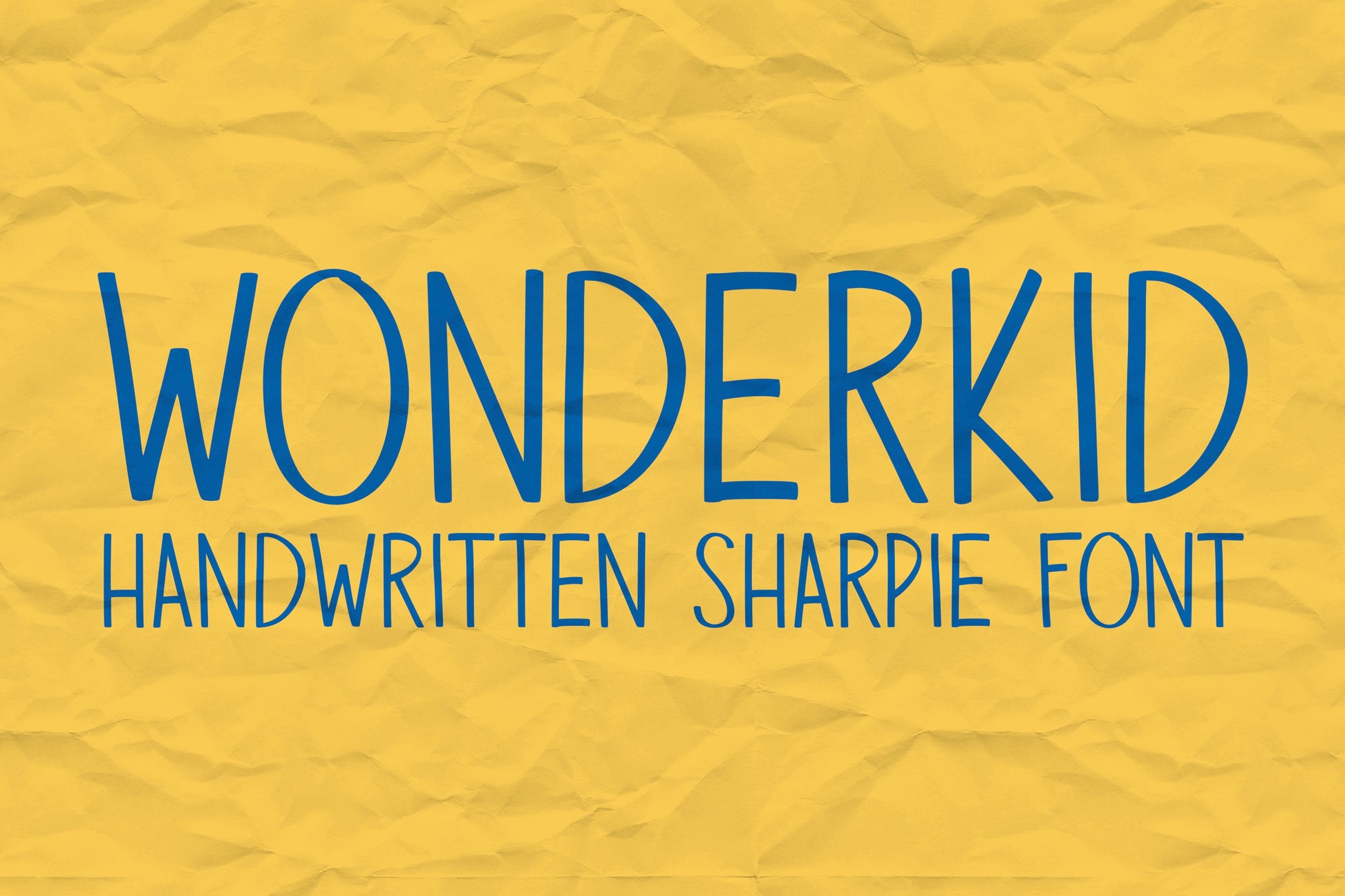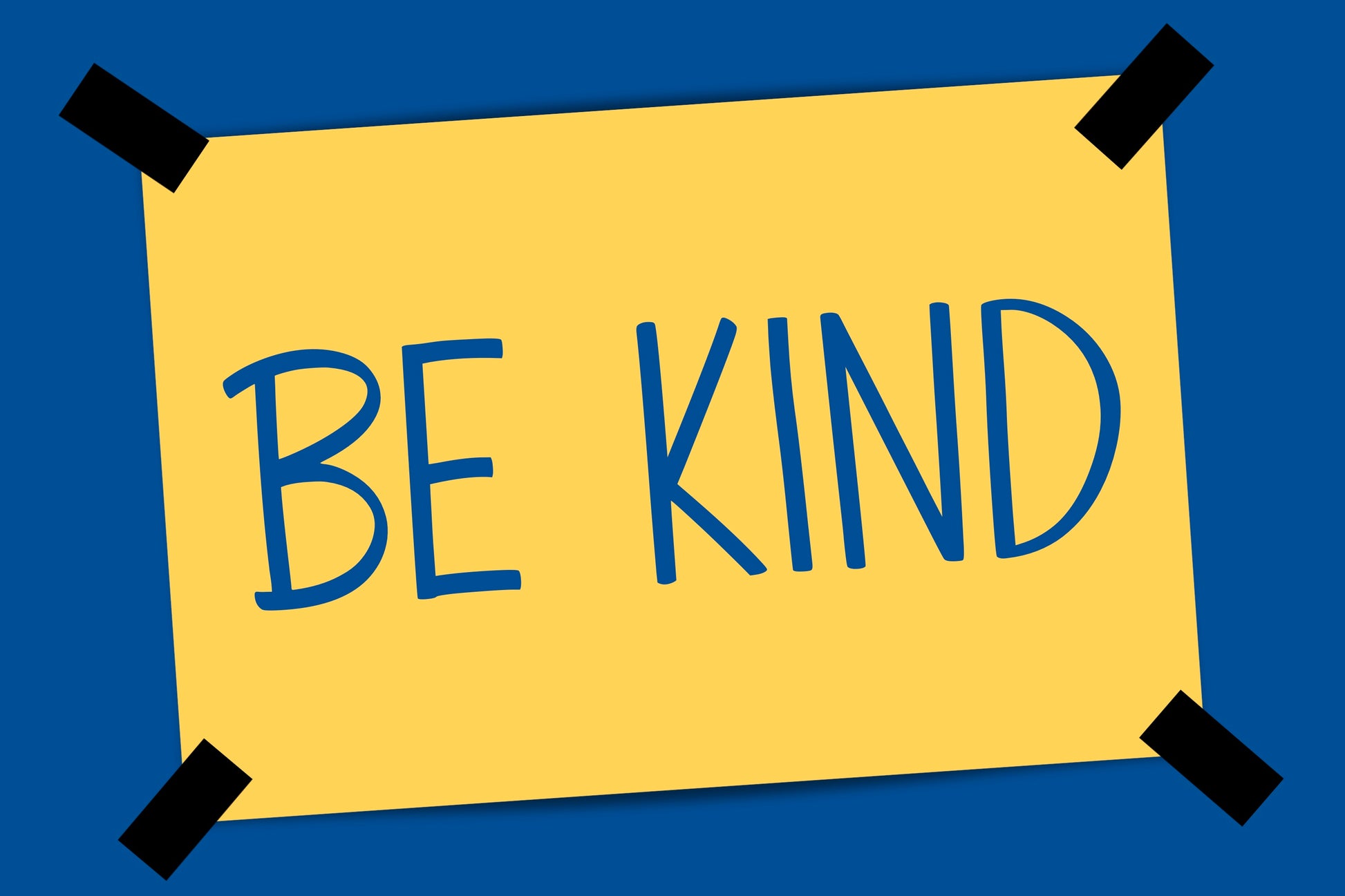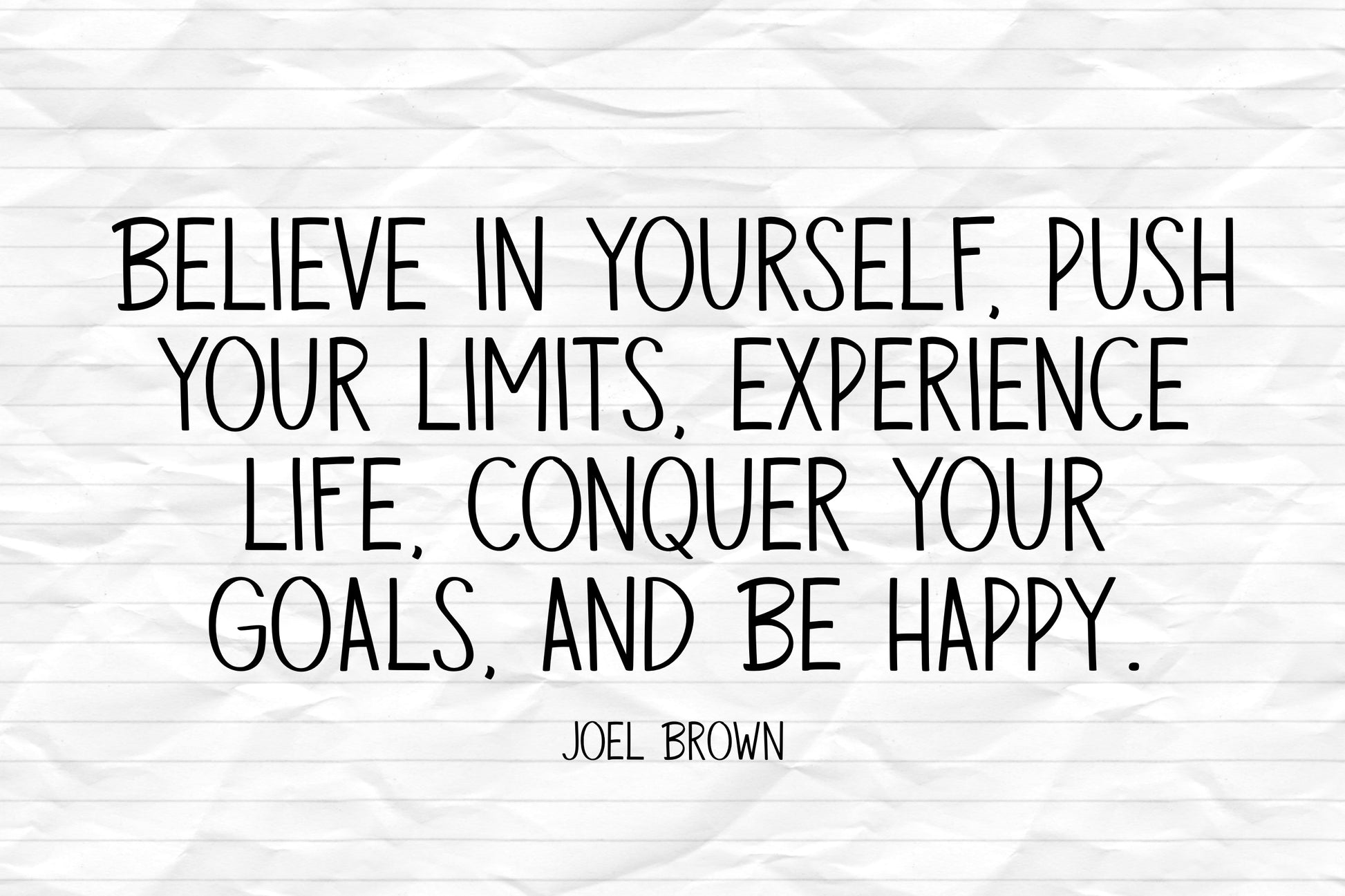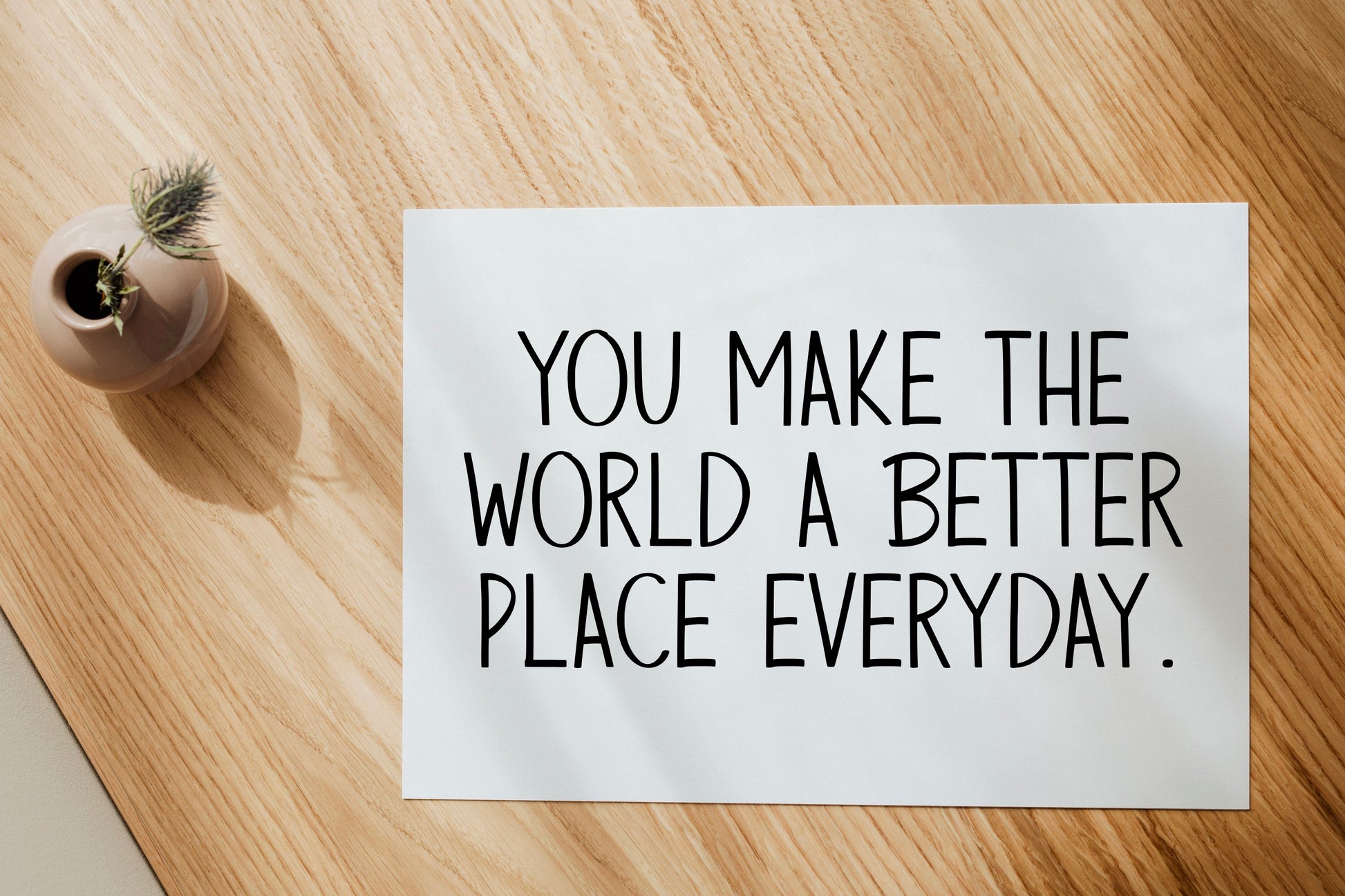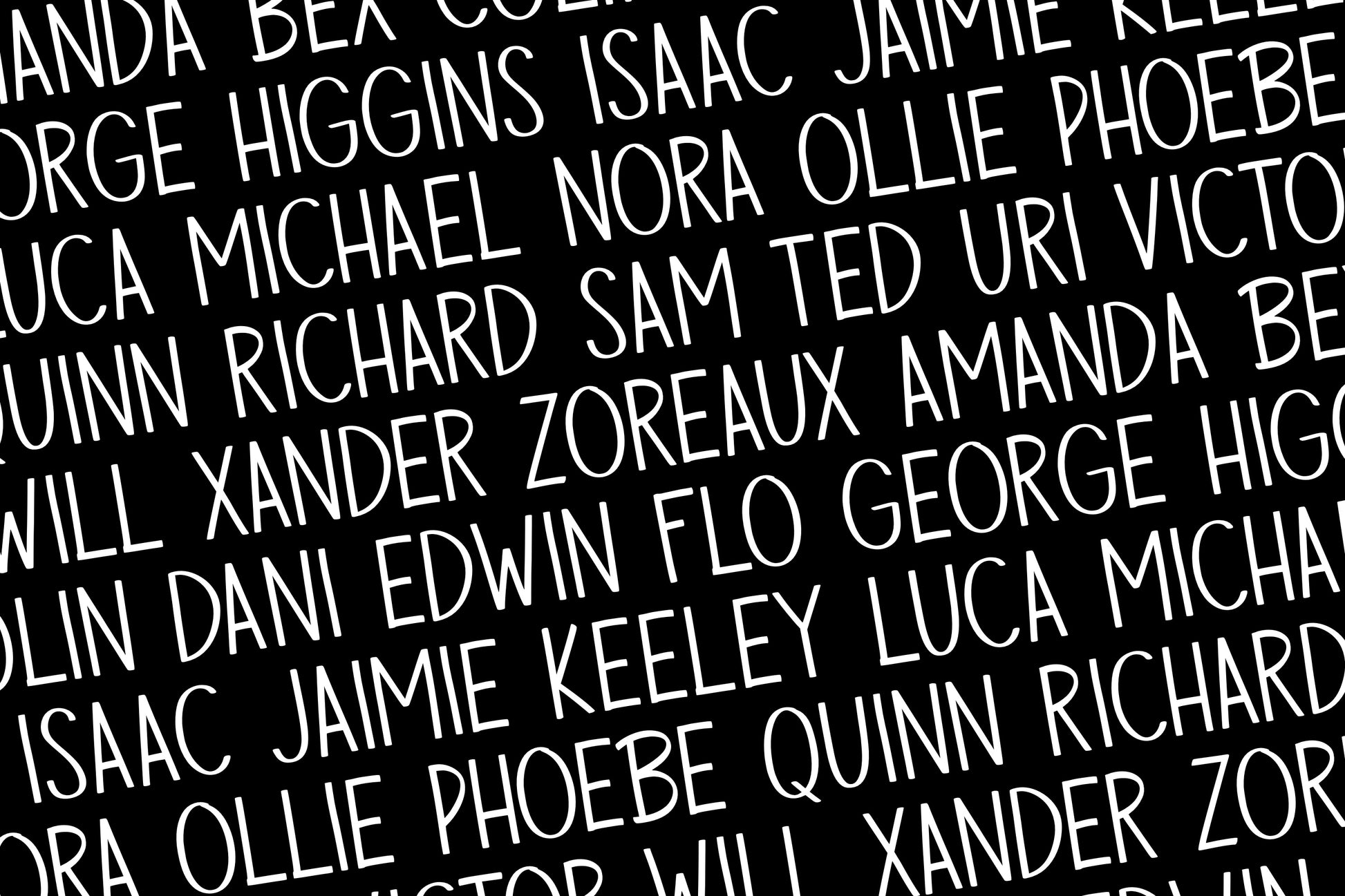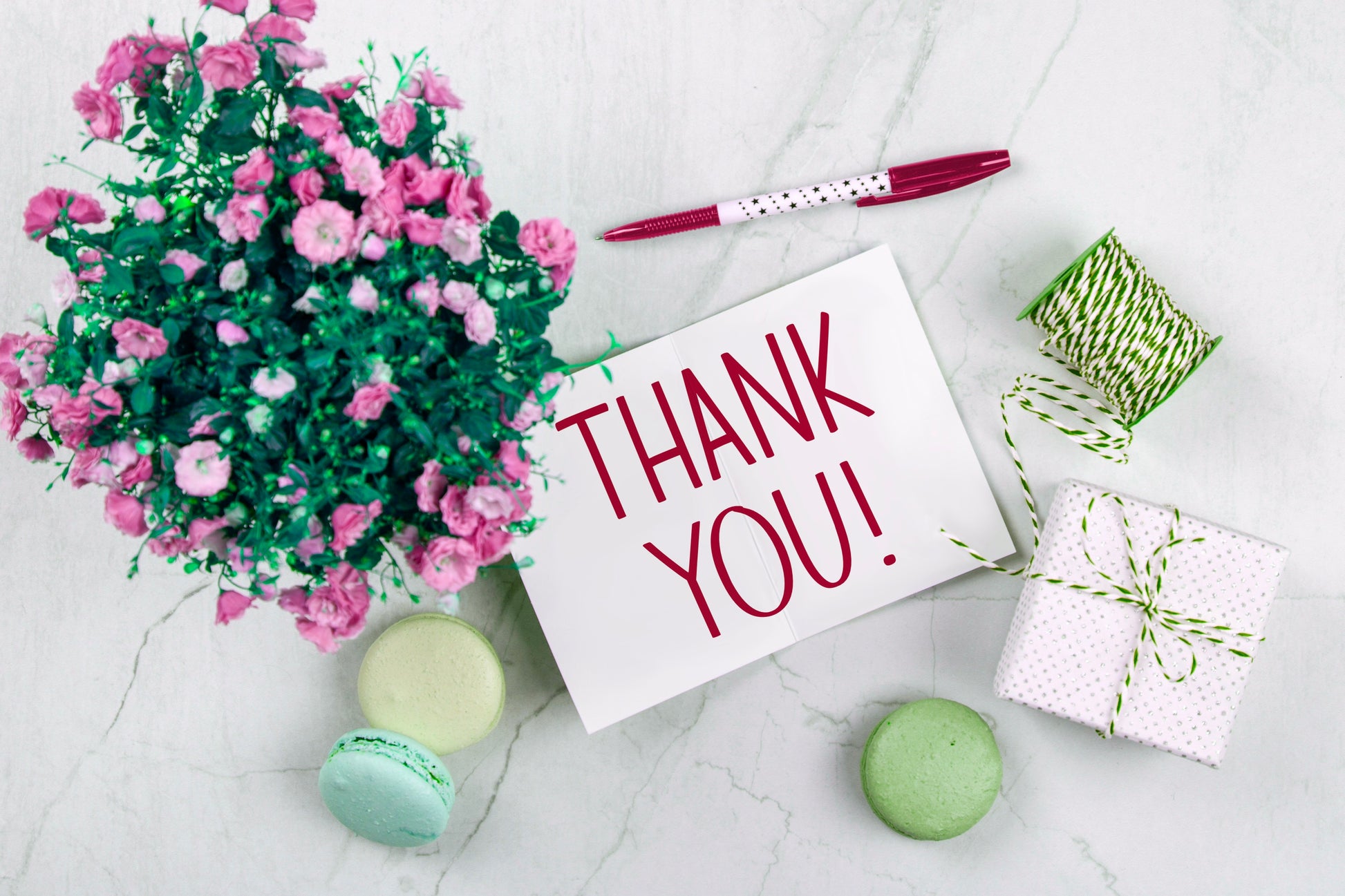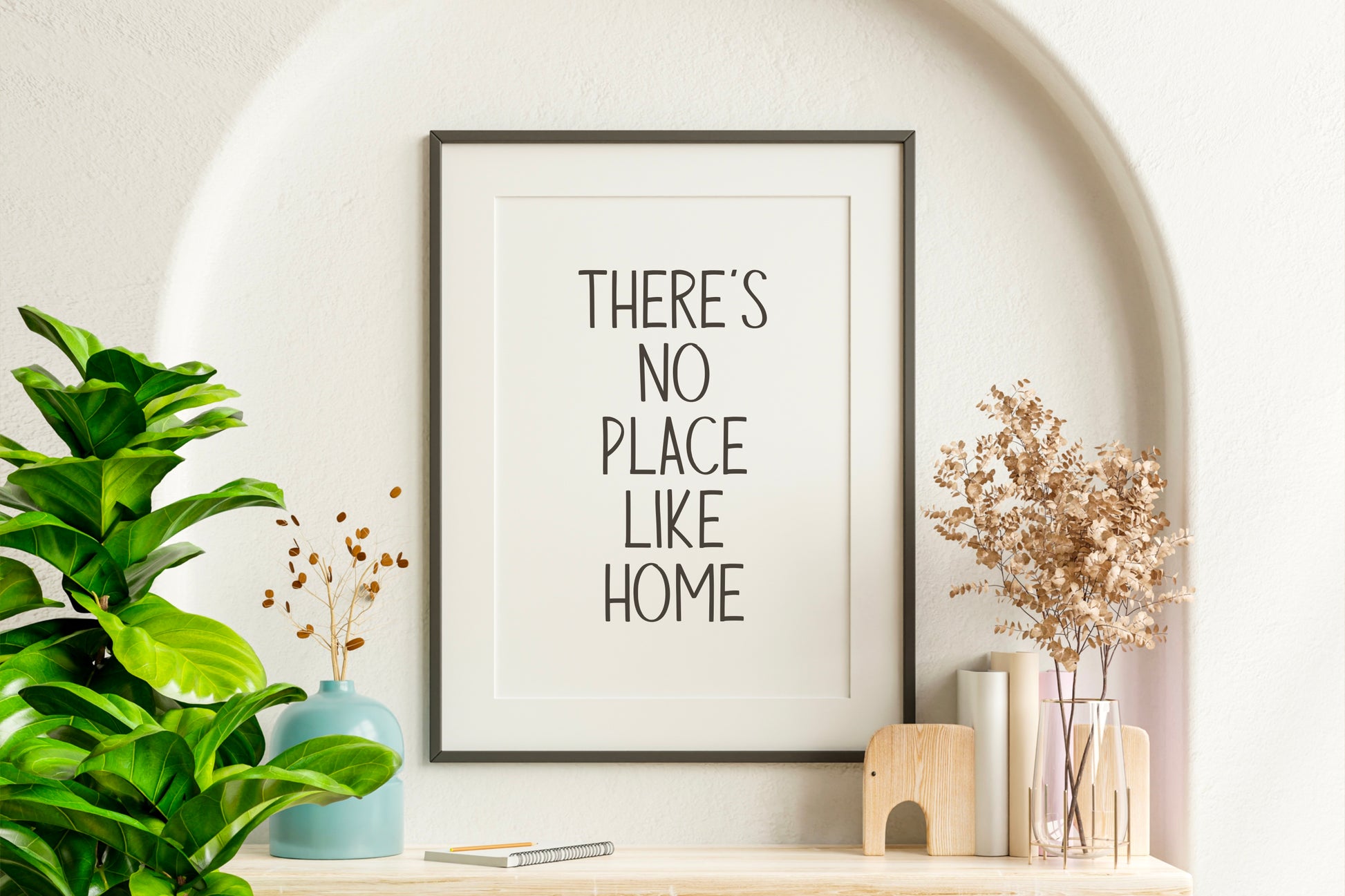
Wonderkid Handwritten Sharpie Font
Introducing the Wonderkid handwritten/hand drawn sharpie font. This natural, organic font will make your design look like it was written with a sharpie marker and will add a fun, quirky, handmade touch to your design! Perfect for posters, magazines, stickers, notes, and more!